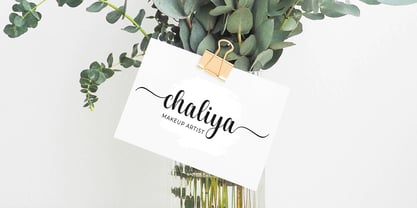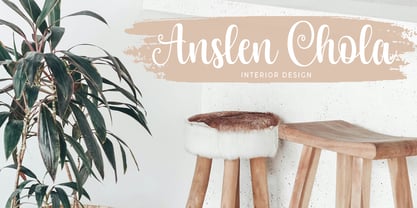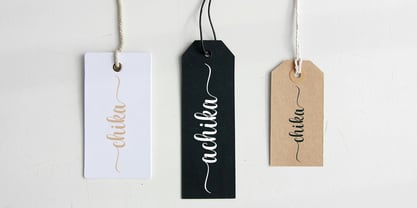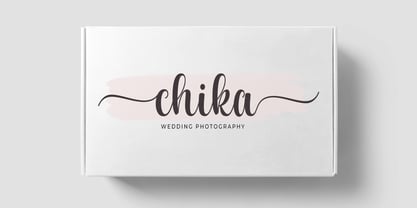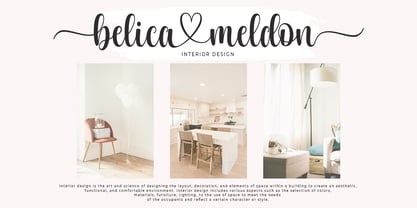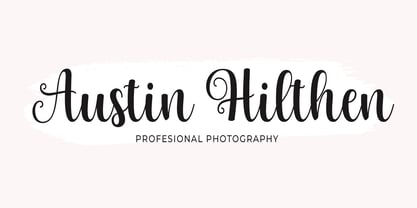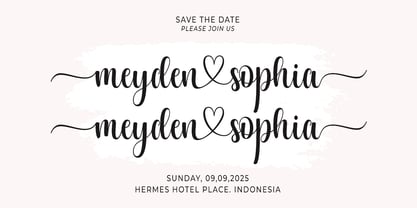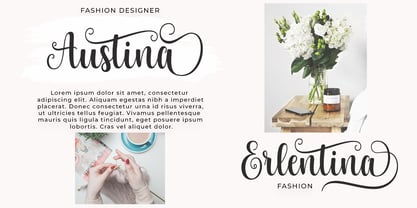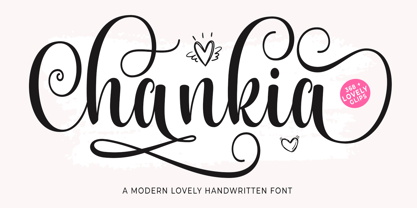
Chankia
by IM Studio
The Chankia Font Family was designed by Ikhsan Maulana and published by IM Studio. Chankia contains 1 styles.
Chankia a stylish and incredibly elegant handwritten font. It looks stunning on wedding invitations, thank you cards, quotes, greeting cards, logos, business cards, and every other design which needs a handwritten touch.